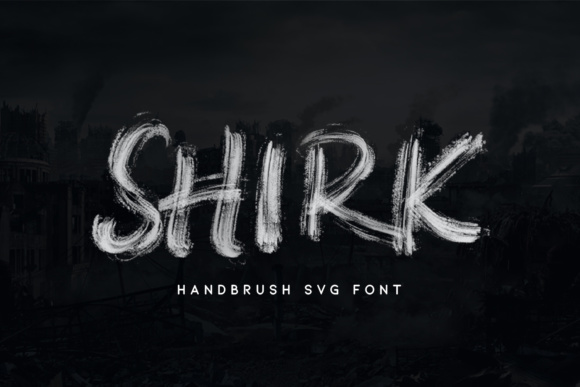
Download Shirk Font for free! Created by MLKWSN studio and published by Abraham Bush, this colorful font family is perfect for adding a unique touch to your designs.
The Shirk is a striking svg font. Its natural brush strokes will give your design a look as if it were made with a real brush.